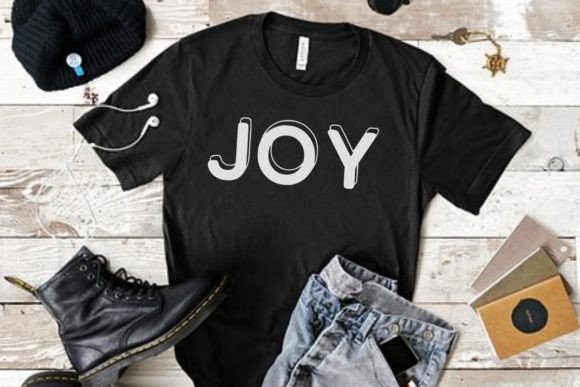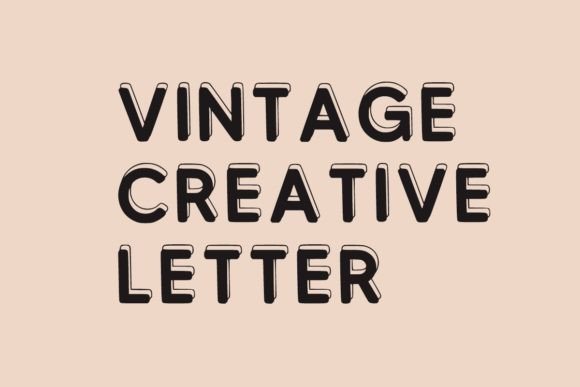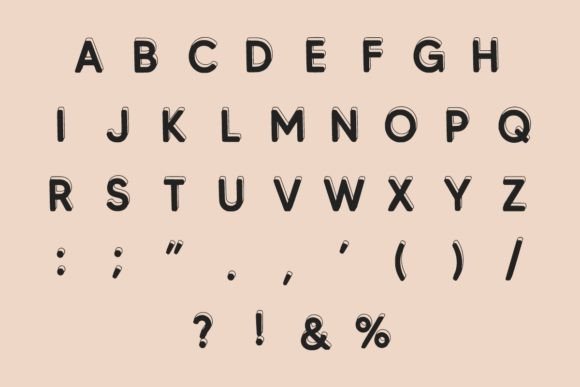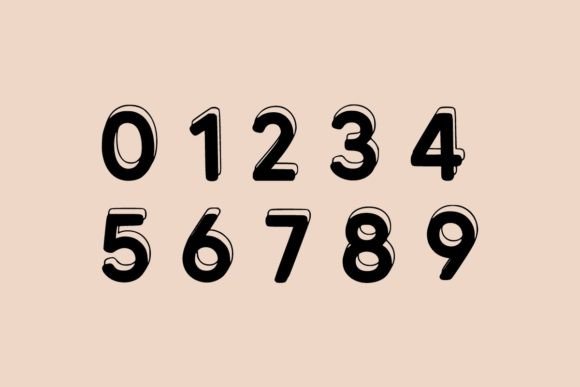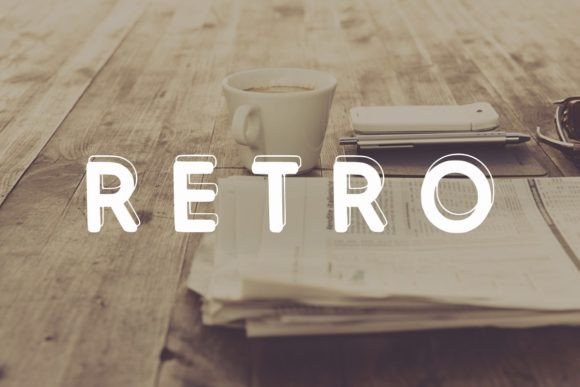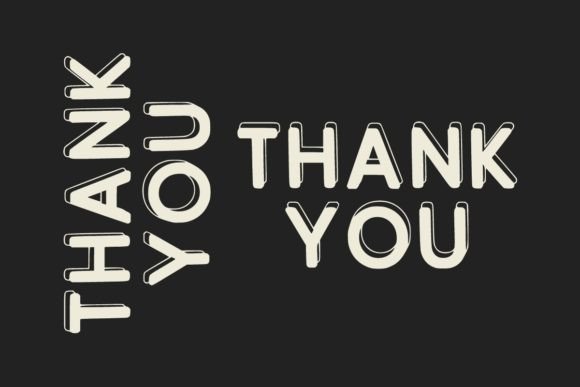
The Perfect Font for a Classic Look: Boston Font
You’re scrolling through your favorite design inspiration board, and suddenly, a vintage logo catches your eye. The bold, classic typography is unmistakable – it’s a Boston Font! The nostalgic feel immediately sparks your creativity, and you can’t help but imagine the possibilities. Whether you’re a seasoned designer or just starting out, there’s something undeniably appealing about this retro font that makes you want to give it a try.
The Boston Font is a timeless display font that exudes elegance and sophistication. Its versatility makes it perfect for a wide range of projects, from blog posts and logos to invitations and photo albums. As a designer, you’ll appreciate the value of this font in adding a touch of classic charm to your designs, making it a valuable addition to your toolkit.
Boston Font Key Features
- Font Family: Boston is a sans-serif font family.
- Font Style: Boston is available in multiple font styles, including Regular, Italic, Bold, and Bold Italic.
- Size: Boston is available in a range of font sizes, from 8 points to 72 points.
- Resolution: Boston is optimized for use at resolutions of 72 dpi and 96 dpi.
- Unique Characteristics: Boston features a clean and modern design, with a focus on legibility and readability. It has a high x-height and a narrow width, making it suitable for use in digital and print media.
Boston Font Review
Overall, I think the Boston font is a solid choice for a sans-serif typeface. It’s clean, modern, and easy to read.
- Legibility: Boston is incredibly easy to read, even at smaller font sizes.
- Neutral feel: The font has a neutral, unobtrusive feel that won’t compete with the content it’s displaying.
- Wide compatibility: Boston supports a wide range of languages and is compatible with most operating systems.
- Lack of character: Boston is a very straightforward, no-frills font that may not be exciting for designers looking for something with more personality.
- No bold weights: Boston is limited to light, regular, and medium weights, which can make it difficult to create clear visual hierarchies.
- Not ideal for display use: Boston is better suited for body text than headlines or titles, where a more dramatic font might be more effective.
Overall, I think the Boston font is a great choice for body text, but may not be the best fit for projects that require a lot of visual flair.
Tips for Getting the Most Out of the Boston Font
Use the Boston Font for headlines and titles to create a bold and eye-catching effect.
Pair it with a clean and simple font for body text to create a visually appealing contrast.
The Boston Font is ideal for:
- Headlines and titles in marketing materials and social media posts.
- Creating a vintage or distressed look in your designs.